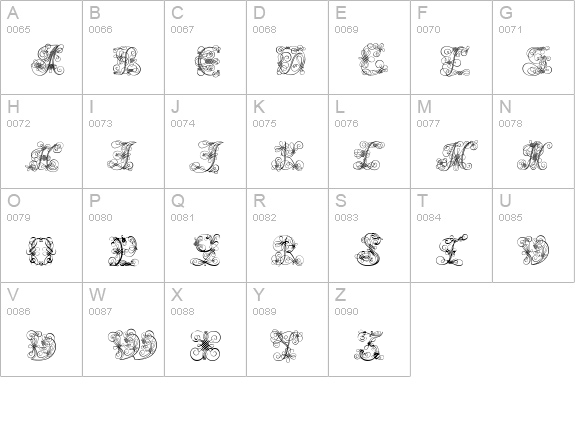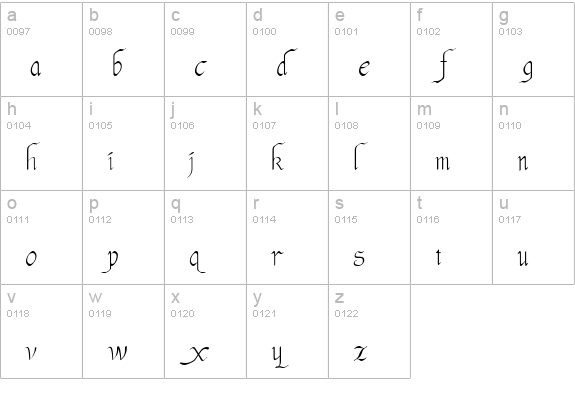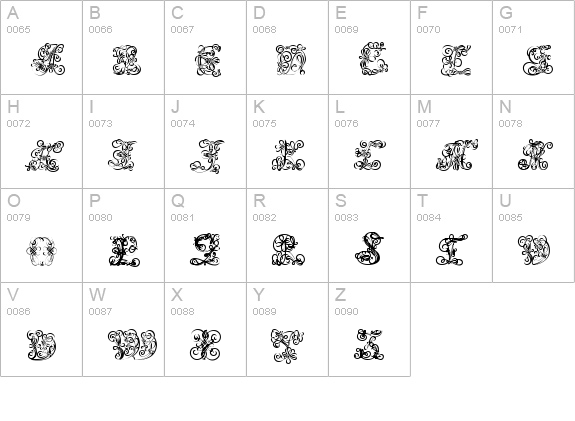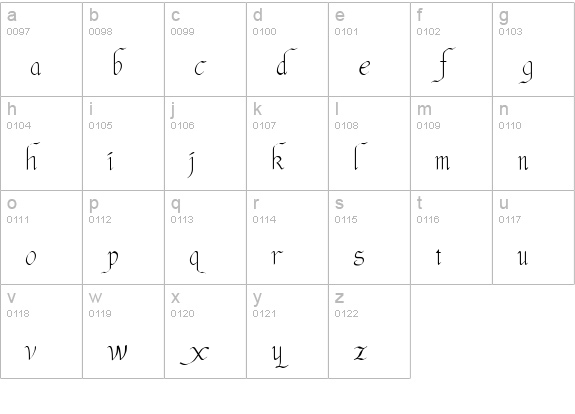
Andrade Swash Font Details
Andrade Swash font is a delightful and elegant typeface that exudes a sense of sophistication and charm. With its stylish swashes and intricate details, this font is perfect for adding a touch of flair to your designs. Whether you're working on invitations, branding materials, or any other project that requires a touch of elegance, Andrade Swash is sure to make a statement. What makes Andrade Swash even more appealing is that it is available for free download at FontsMarket.com. This means you can easily access this beautiful font and use it in your projects without any cost. Don't miss out on the opportunity to enhance your designs with the timeless beauty of Andrade Swash font. Download it today and elevate your creations to new heights of sophistication and style.